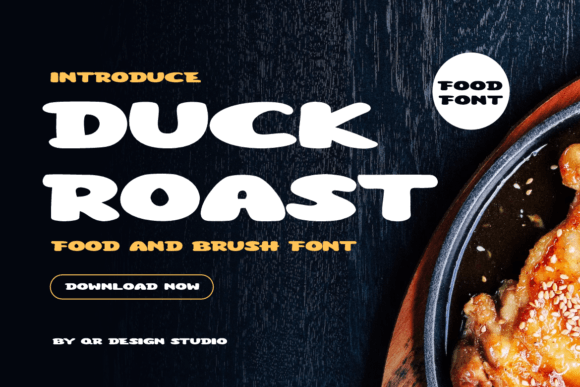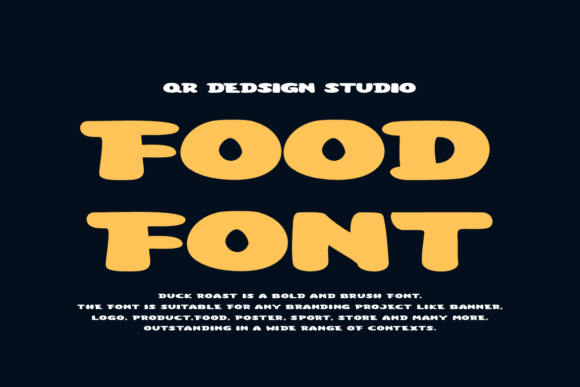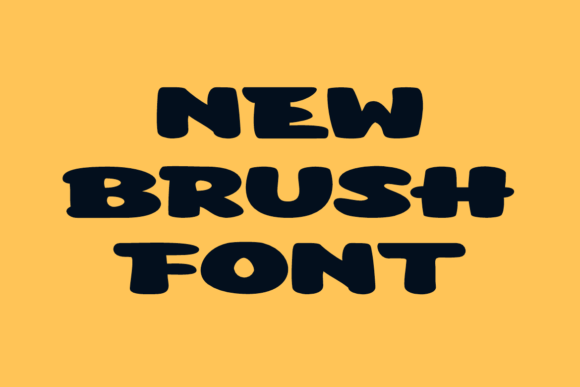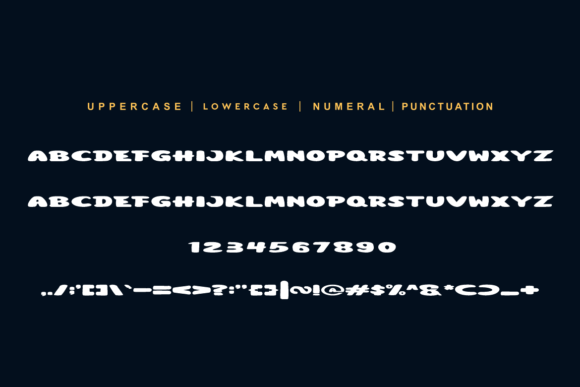
Duck Roast Font
About the Duck Roast Font
The Duck Roast Font is here to transform your projects with its distinctive character and style. Duck Roast is a fun and cute brush display font. Add it to your creative projects and you will love the results!
Duck Roast’s playful, hand-drawn quality makes it ideal for headlines, short slogans, and branding elements where a friendly, approachable feel is desired. It works exceptionally well on packaging for children’s products, invitations to informal events, or posters promoting lighthearted campaigns. However, its brush strokes are not well-suited for body text or UI elements; the informality would hinder readability in extended passages.
Pairing Duck Roast effectively requires a contrasting typeface to balance its casual energy. A clean sans-serif like Montserrat or Open Sans would provide a strong counterpoint, offering readability for supporting text. Alternatively, a more delicate serif such as Lora could soften the brush strokes, creating a vintage-inspired aesthetic. Avoid pairing it with other highly decorative fonts, which could create visual clutter.
Duck Roast’s overall personality is best described as cheerful and approachable, conveying a sense of warmth and handcrafted charm. Its irregular stroke weights and slightly uneven baseline add to this friendly, whimsical character.